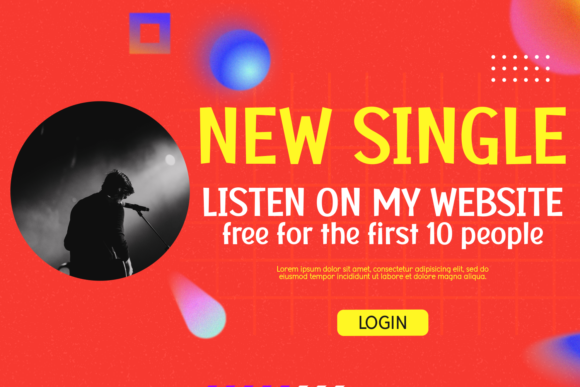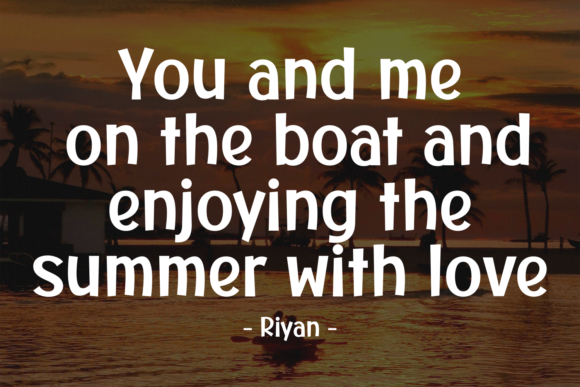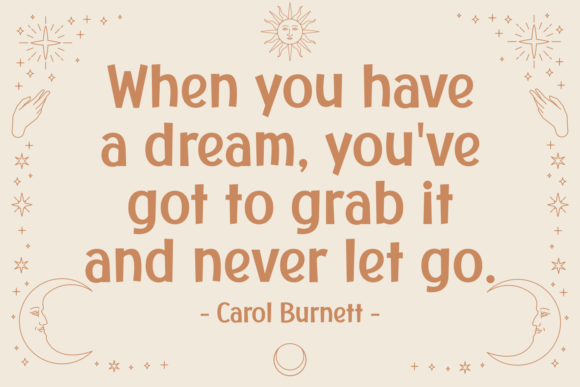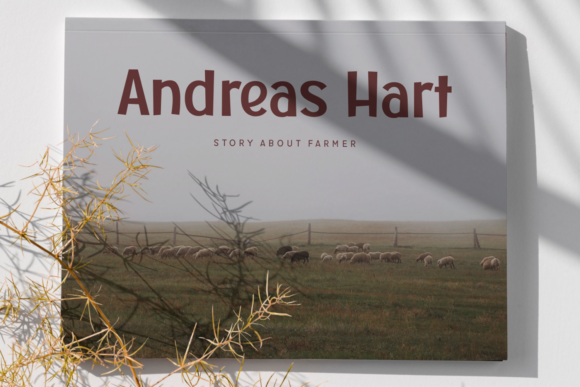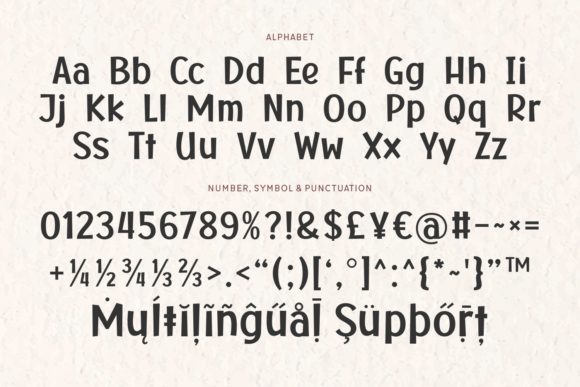
The Dream More Font: A Creative Powerhouse for Your Designs
Have you ever been in the middle of a design project, and suddenly, you’re stuck on finding the perfect font? I recall a recent experience where a client asked for a bold, yet elegant font for their branding campaign. After hours of searching, I stumbled upon the Dream More font, and it was love at first sight! In this article, we’ll dive into the world of Dream More, a clean and versatile display font that’s perfect for various creative projects.
An Honest Review of Dream More Font
What I Love About Dream More ✨
- ✅ Clean and Versatile: Dream More is a display font that’s suitable for almost any creative idea you have in mind. Its clean lines and elegant curves make it perfect for a wide range of projects.
- ✅ Highly Legible: The font is designed to be highly legible, even at smaller sizes, making it ideal for use on various platforms, from social media to print materials.
- ✅ OpenType Features: Dream More comes with a range of OpenType features, including stylistic alternates, glyphs, and ligatures, giving you plenty of creative options.
- ⚠️ Limited Use for Body Text: While Dream More is perfect for headlines and titles, it may not be the best choice for body text due to its display font nature.
- ⚠️ Some Kerning Issues: As with any font, there might be some kerning issues when using Dream More with certain letter combinations. However, these can be easily adjusted in most design software.
The Backstory of Dream More Font
Dream More was designed by a team of creatives who wanted to create a font that would inspire people to dream big. With its clean lines and elegant curves, Dream More is the perfect tool for anyone looking to add a touch of sophistication to their designs.
Q: Is Dream More font suitable for body text?
A: While Dream More font is highly legible, it may not be the best choice for body text due to its display font nature. It’s recommended to use it for headlines and titles.